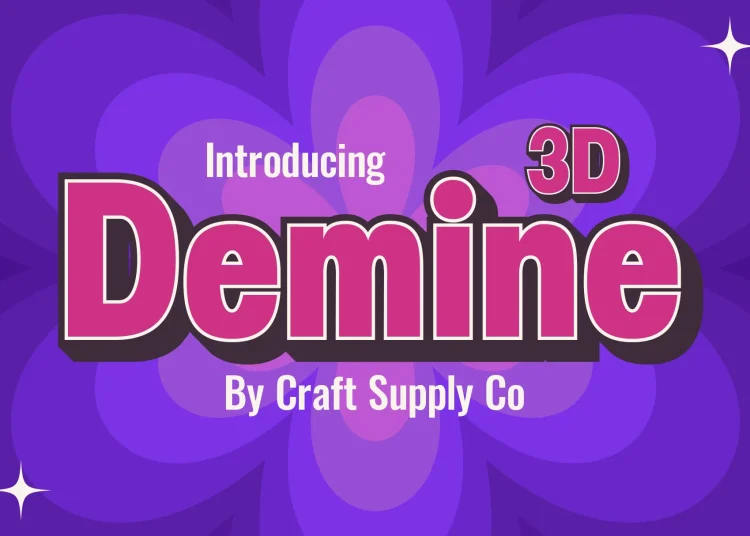
Demine 3D Font
Demine 3D is a bold and captivating font that stands out with its striking, heavy shapes and mesmerizing 3D effects. Each letter is meticulously handcrafted to add depth and dimension, ensuring that your designs command attention. The font’s vibrant and dynamic appearance makes it the perfect choice for projects where a bold, irresistible message is crucial.
Despite its dramatic look, Demine 3D offers remarkable versatility. It seamlessly adapts to a variety of design needs, from eye-catching posters and impactful headlines to other creative applications. Its flexibility makes it an invaluable asset for designers who seek to make a strong visual impression.
Breaking away from traditional typography, Demine 3D combines bold design with a captivating 3D flair. This unique combination ensures that your message is not just seen but also felt and understood, making it an excellent choice for striking and memorable designs. Demine 3D Font is available for free download for personal use. To purchase the full version and commercial license, you can do so HERE.